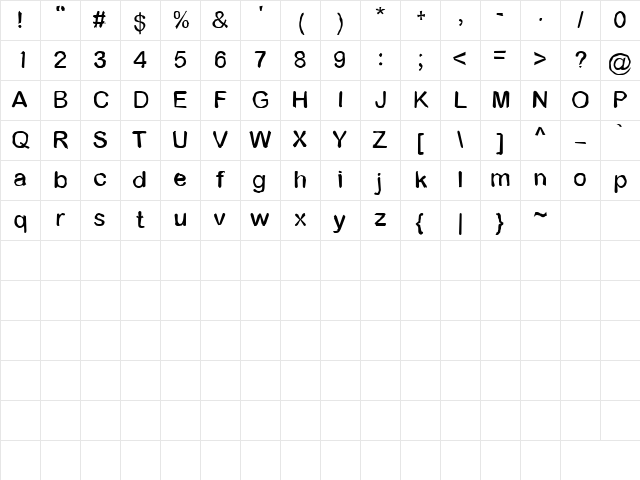
Pathfinder Bold
Design Context for Pathfinder
Pathfinder is a composed and adaptable typeface that performs quietly and consistently across a wide range of design contexts. Its bold stroke weight gives it real presence on the page.